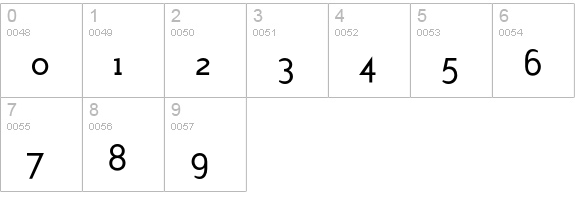
Mercury SmallCaps Font Details
Mercury SmallCaps is a sleek and modern typeface that exudes elegance and sophistication. With its clean lines and balanced proportions, this font is perfect for adding a touch of refinement to any design project. The SmallCaps variation of the Mercury font family offers a unique twist, providing a stylish alternative for titles, headings, and other display text. What sets Mercury SmallCaps apart is not only its aesthetic appeal but also its versatility. Whether you're designing a logo, crafting a brochure, or creating a website, this font will elevate your work with its polished look. The SmallCaps feature adds an extra level of distinction, making your text stand out in a subtle yet impactful way. Best of all, Mercury SmallCaps is available for free download at FontsMarket.com. This means you can access this premium font without any cost, making it a valuable addition to your font library. Don't miss out on the opportunity to enhance your designs with the timeless beauty of Mercury SmallCaps.